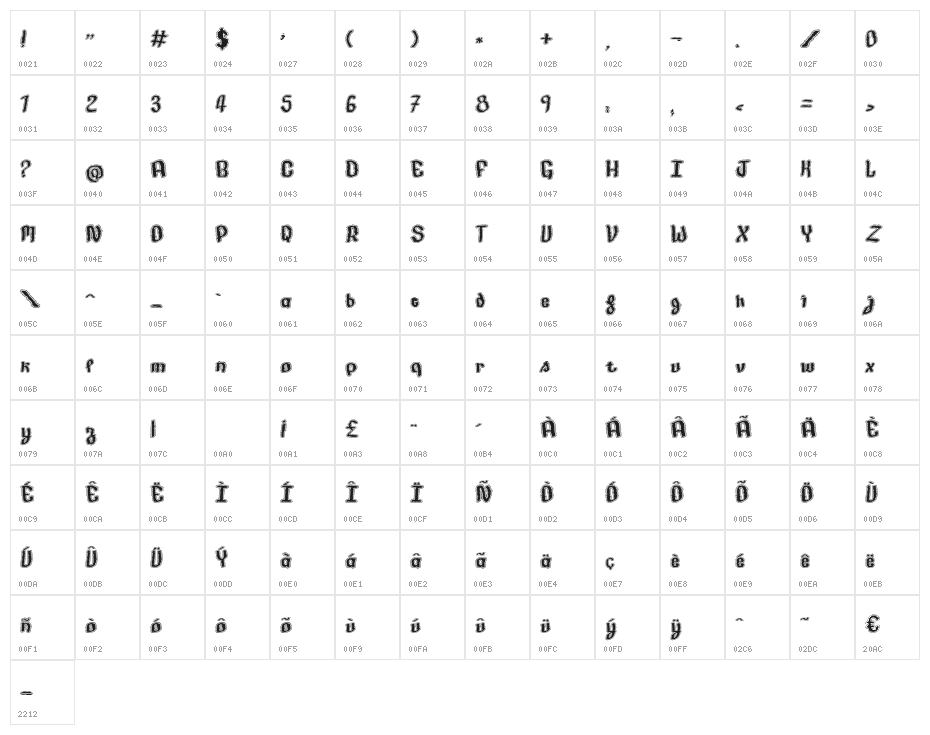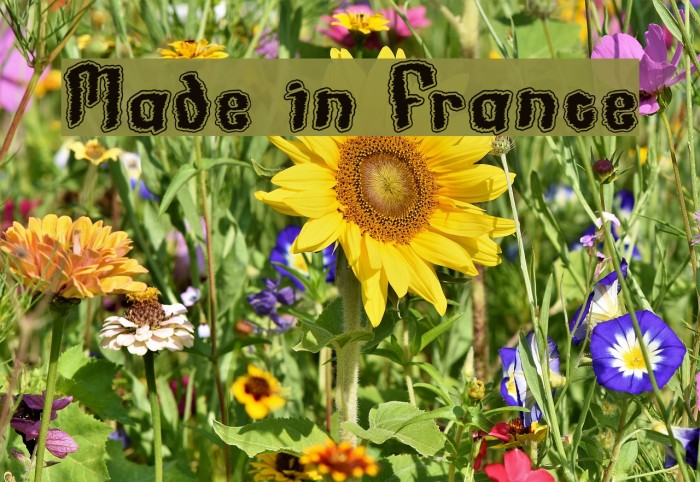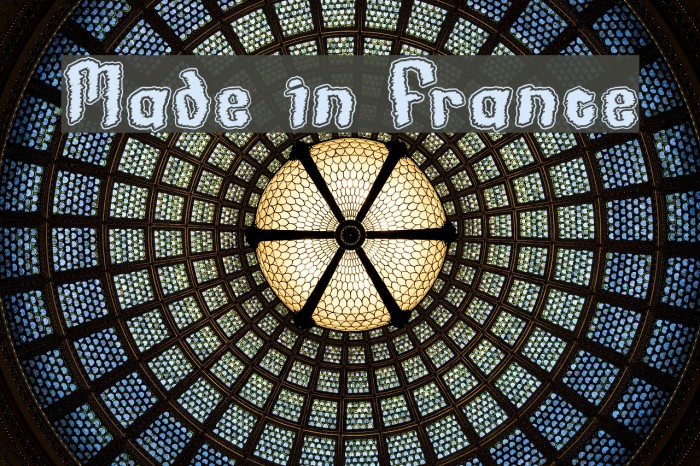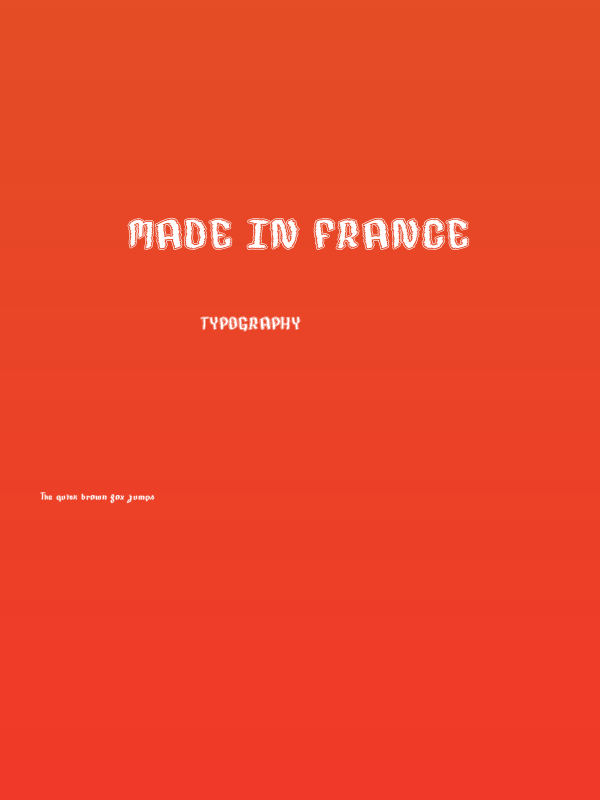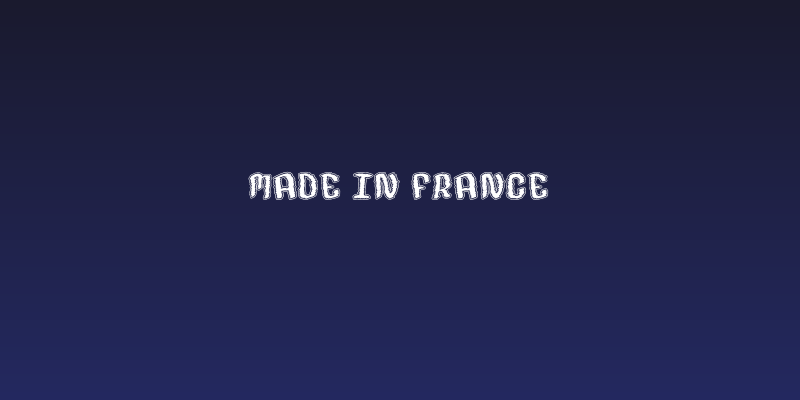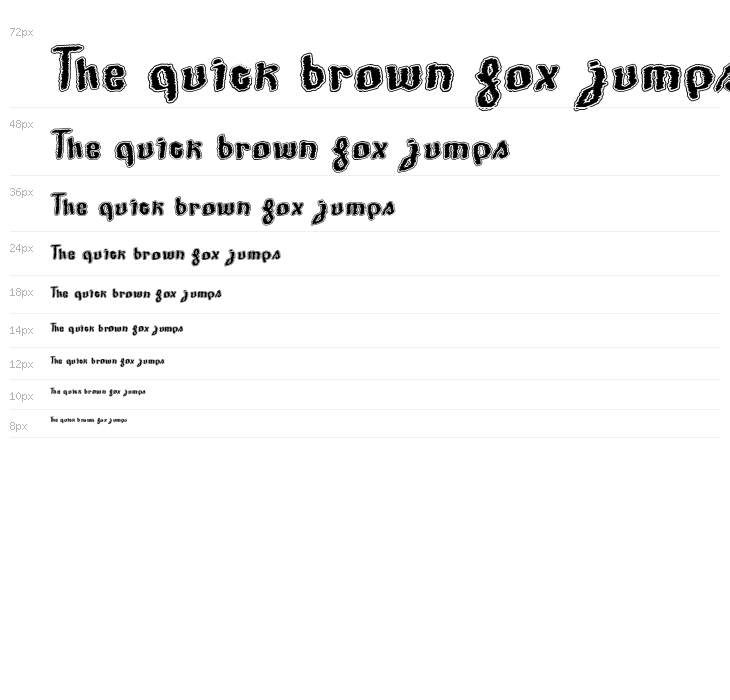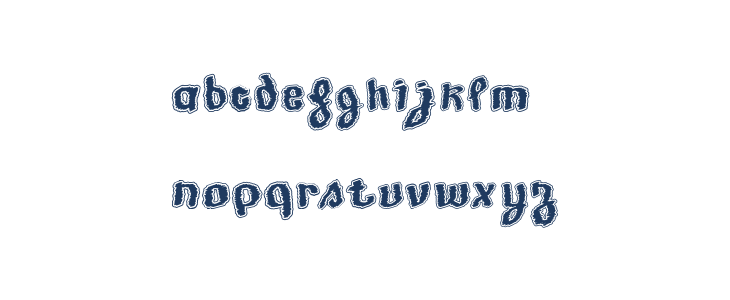
Made in France Font
Made in France Description
This font features a bold, decorative style with a unique textured outline that gives it a hand-drawn appearance. The uppercase and lowercase letters are consistent in their playful, irregular shapes, adding a whimsical touch to any design. The numbers and special characters maintain this distinct style, ensuring a cohesive look across all text elements. The font's boldness and artistic flair make it stand out, ideal for projects that require a creative and eye-catching typeface.
| Proposed Projects | Ideal for posters, album covers, children's book titles, and creative branding projects. |